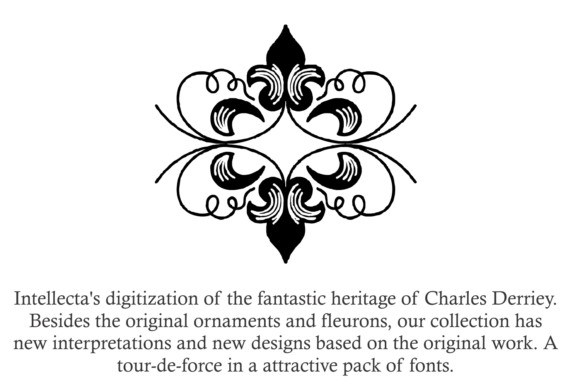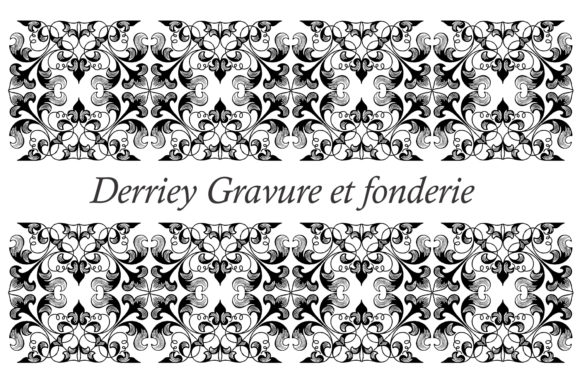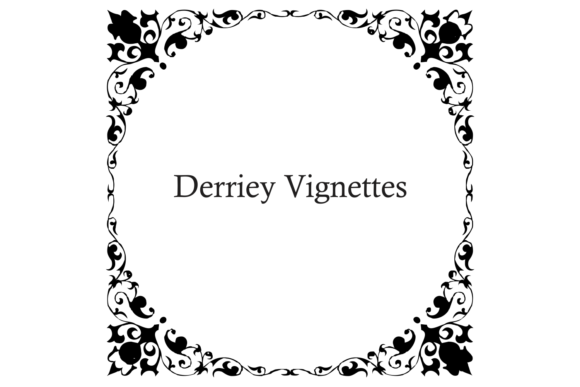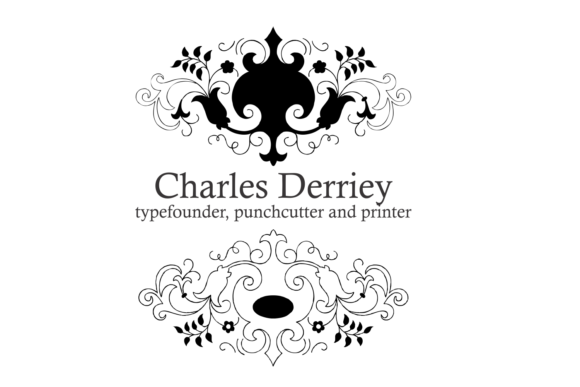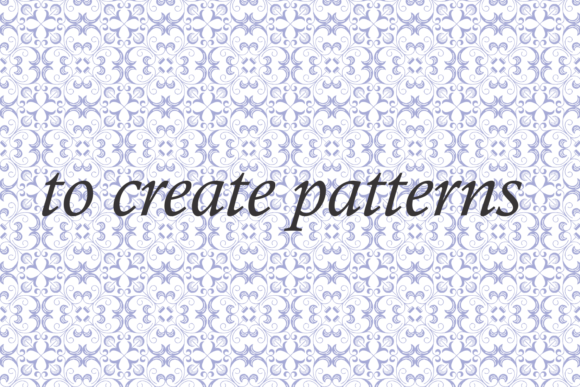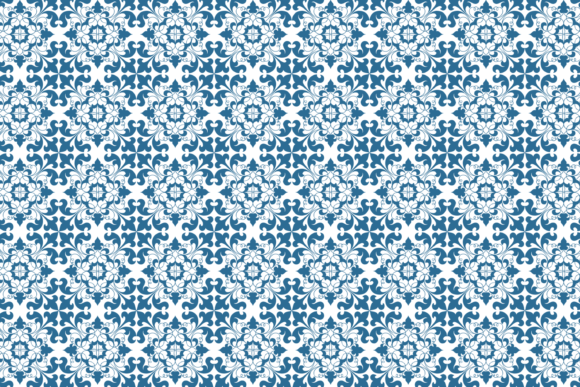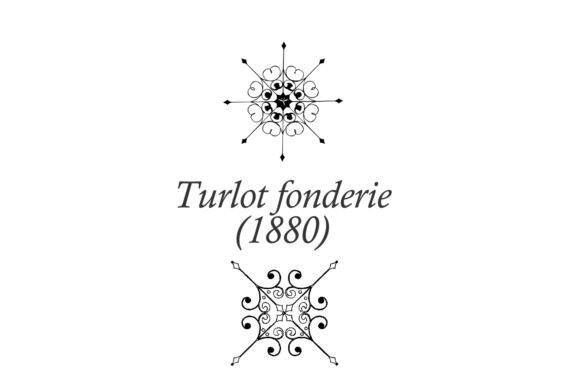
Derriey Vignettes Family Font
Intellecta’s digitization of the fantastic heritage of Charles Derriey is a remarkable endeavor that brings to life the artistic legacy of this renowned figure. This collection goes beyond simply preserving the original ornaments and fleurons created by Charles Derriey; it also includes new interpretations and designs inspired by his work. The result is a tour-de-force by the talented designer Iza W., who has skillfully captured the essence of Derriey’s artistry while infusing it with a fresh and contemporary perspective.
Charles Derriey’s original ornaments and fleurons are highly regarded for their intricate details, refined craftsmanship, and timeless beauty. By digitizing and preserving these historical elements, Intellecta has ensured that their legacy continues to inspire and enrich modern design practices.
In addition to the faithful reproduction of Derriey’s original work, the collection offers new interpretations and designs that build upon his artistic foundation. This fusion of tradition and innovation allows designers to explore a wide range of creative possibilities, blending the classic aesthetics of Derriey’s era with modern design sensibilities.
The collection curated by Iza W. showcases her exceptional talent in reimagining and expanding upon the original work of Charles Derriey. Her new designs pay homage to the legacy of Derriey while adding a contemporary touch, breathing new life into the timeless ornaments and fleurons.
This comprehensive collection provides designers with a wealth of options to incorporate Derriey’s heritage into their projects. Whether you’re working on typography, book design, branding, or any other creative endeavor, these ornaments and fleurons offer a versatile toolkit to add a touch of sophistication and elegance to your designs.
Furthermore, the digitization of Charles Derriey’s heritage ensures wider accessibility to his work, transcending physical limitations and enabling designers from around the world to explore and utilize his artistic contributions.
In summary, Intellecta’s digitization of Charles Derriey’s heritage, accompanied by Iza W.’s new interpretations and designs, is a remarkable achievement that celebrates the rich artistic legacy of this influential figure. With its combination of original elements and contemporary additions, this collection offers a treasure trove of inspiration for designers, allowing them to infuse their projects with the timeless beauty and craftsmanship of Derriey’s work.